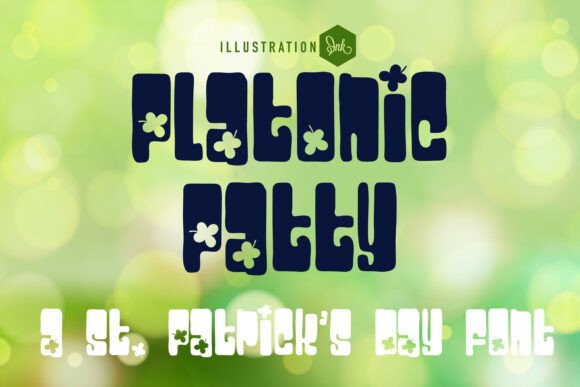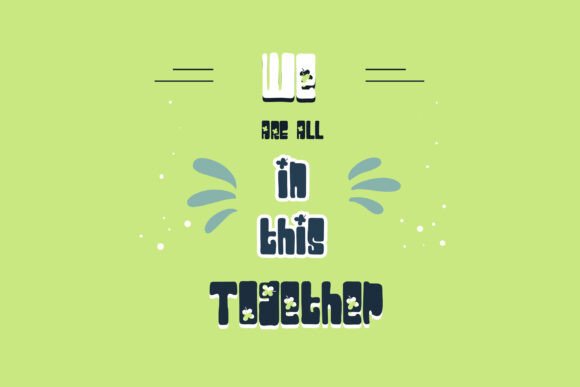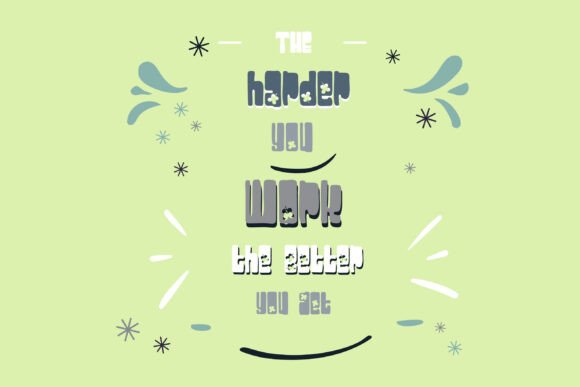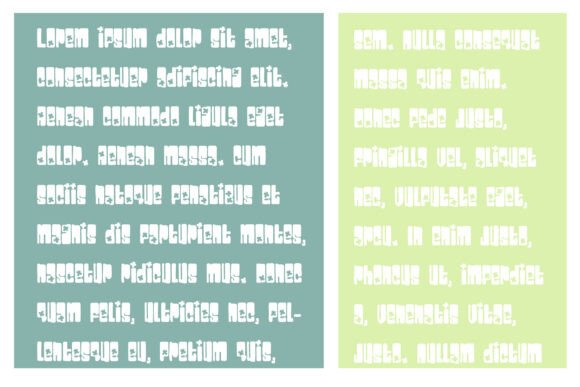
Platonic Patty Font
About the Platonic Patty Font
Experience the unique personality of Platonic Patty Font, a font designed for impact. This hand-crafted sans serif is retro-style font with clover throughout.
Platonic Patty’s playful, retro style makes it ideal for headlines, short text blocks on posters, and branding applications requiring a touch of vintage charm. It works well for packaging of artisanal goods or products aimed at a younger, more casual demographic. However, its handcrafted nature and relatively low x-height make it unsuitable for body text or UI elements where readability is paramount.
Consider pairing Platonic Patty with a clean, geometric sans-serif like Montserrat for a balanced contrast, or a classic serif like Garamond for a more sophisticated feel. A script font such as Great Vibes could add a touch of elegance for special applications.
The overall personality is friendly and approachable, yet undeniably stylish. Avoid using it in contexts requiring serious or corporate branding.